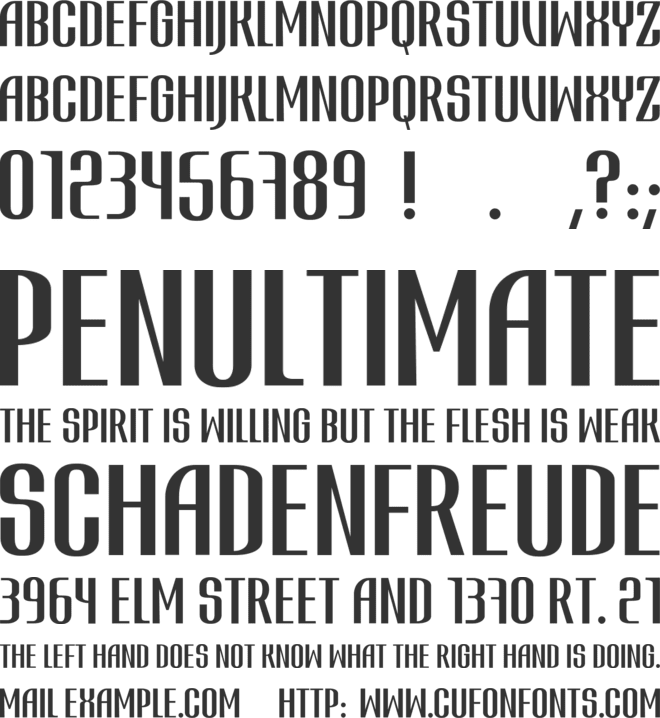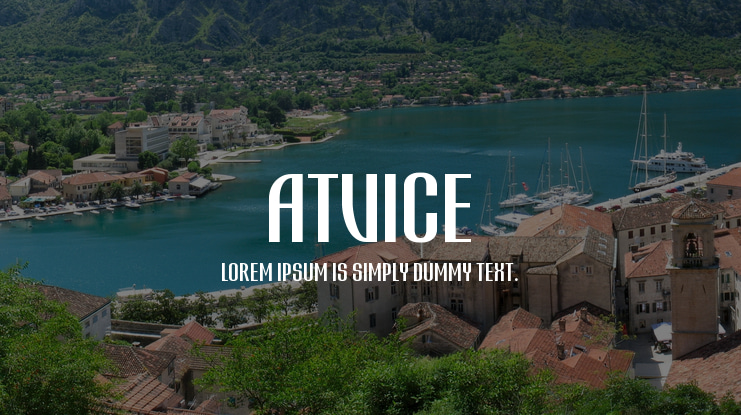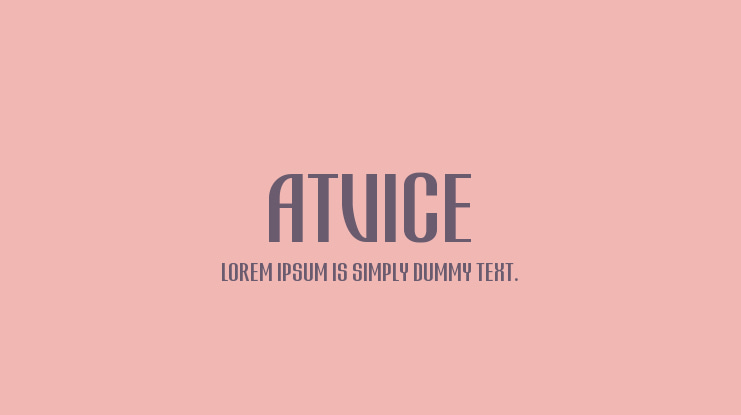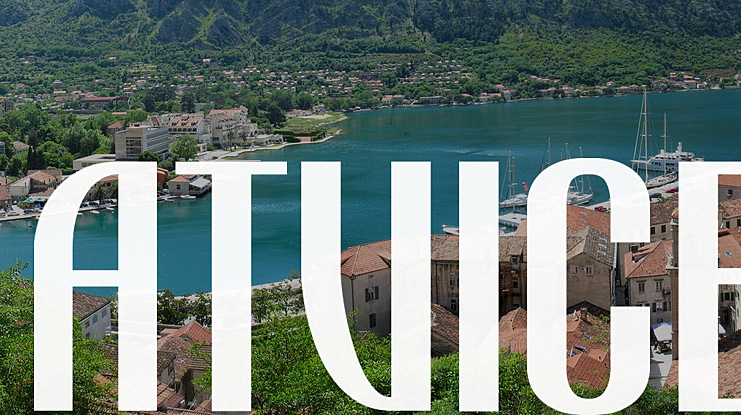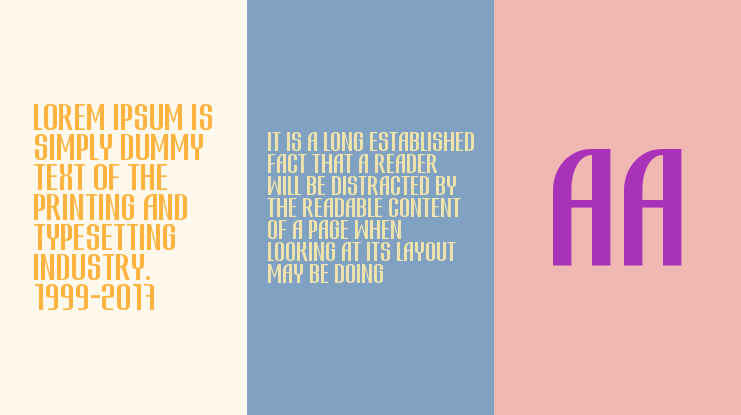
Atvice Font
ATViCE is a medium contrast display font for print and web applications. It's strict vertical shapes combine eloquence and elegance in it's purest form. Works best in 25pt and up - so go big or go home!
I has been made within 2 weeks in cooperation with Martina Flor at Anhalt University of Applied Sciences, Department of Design, Dessau.